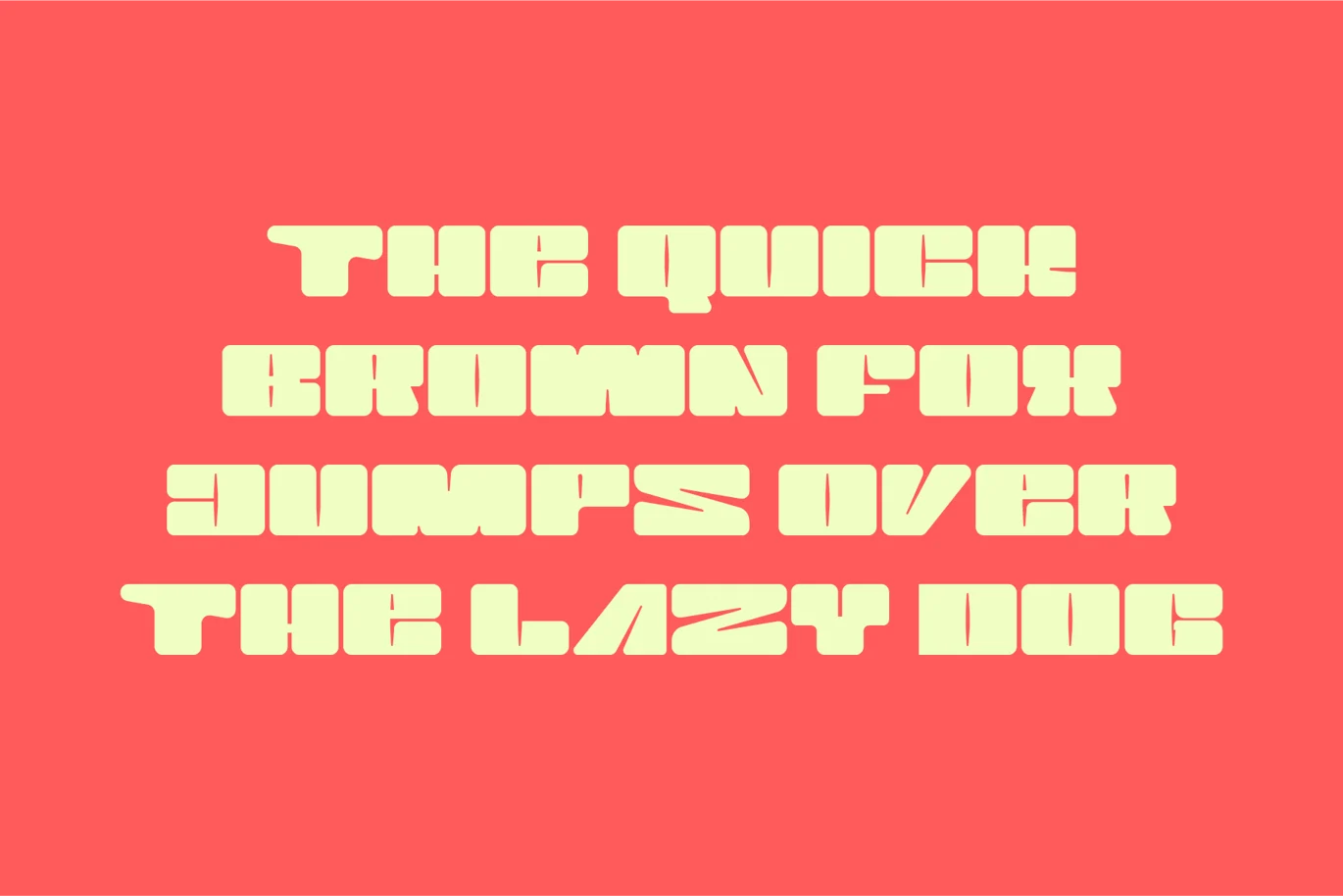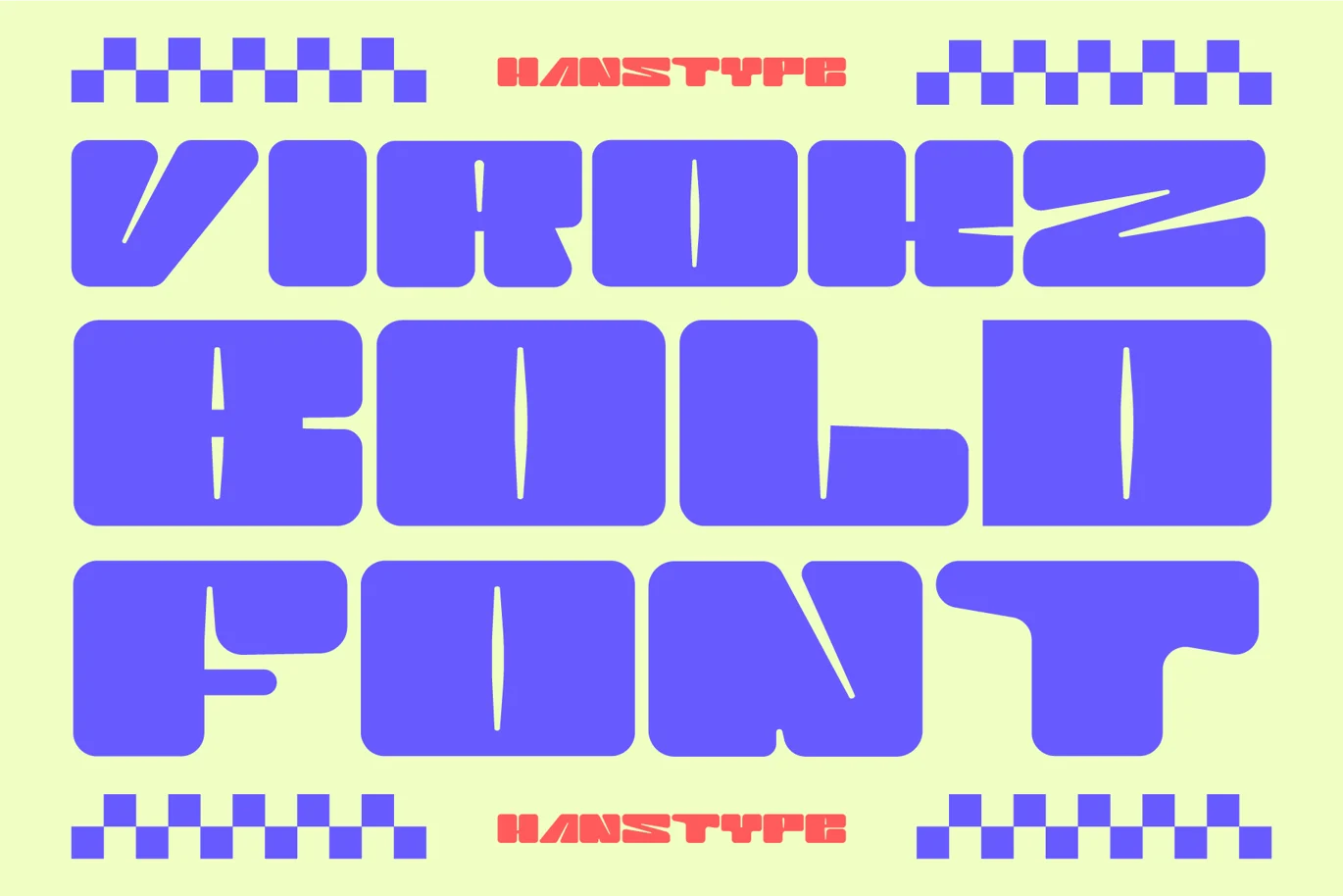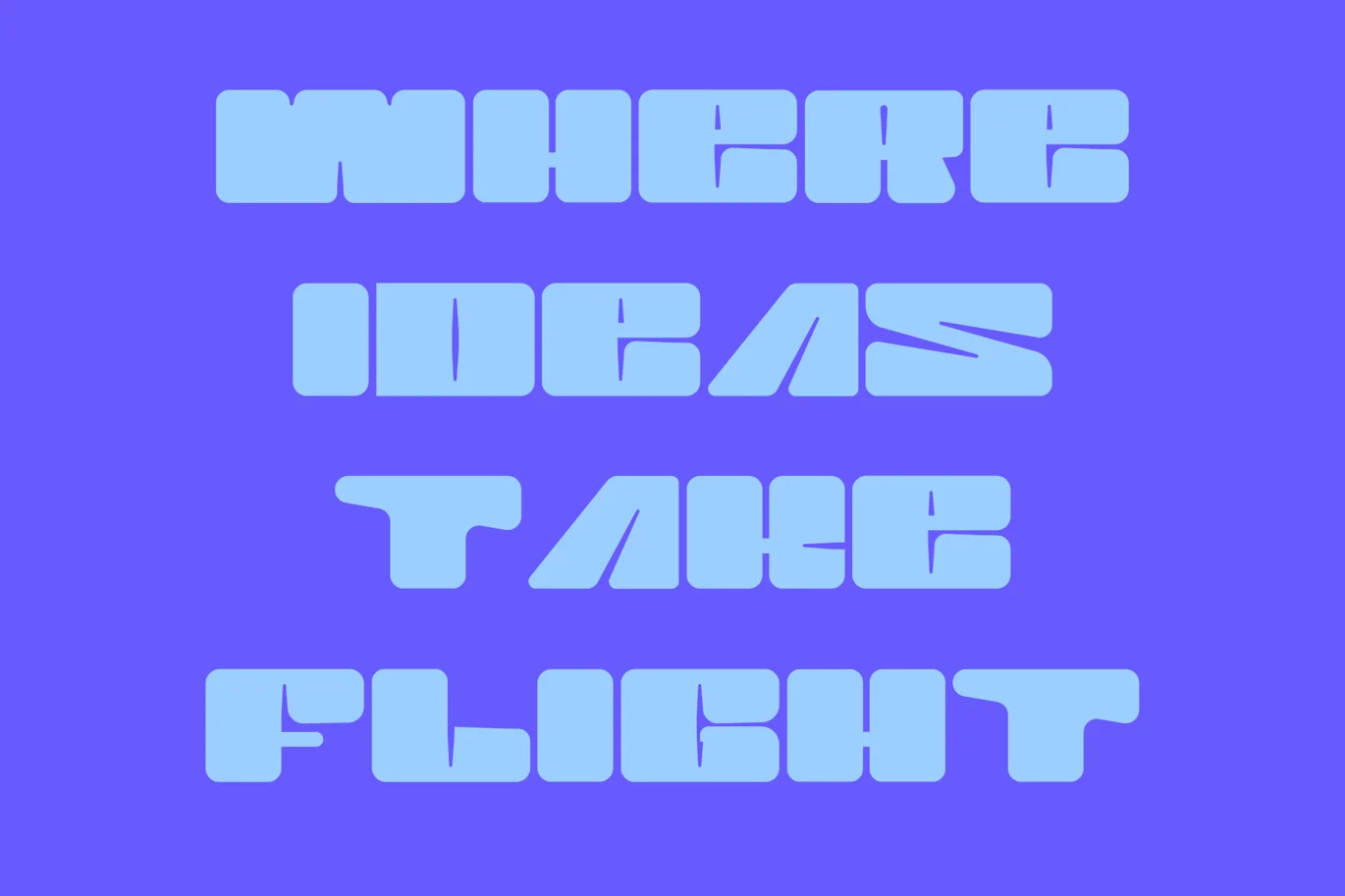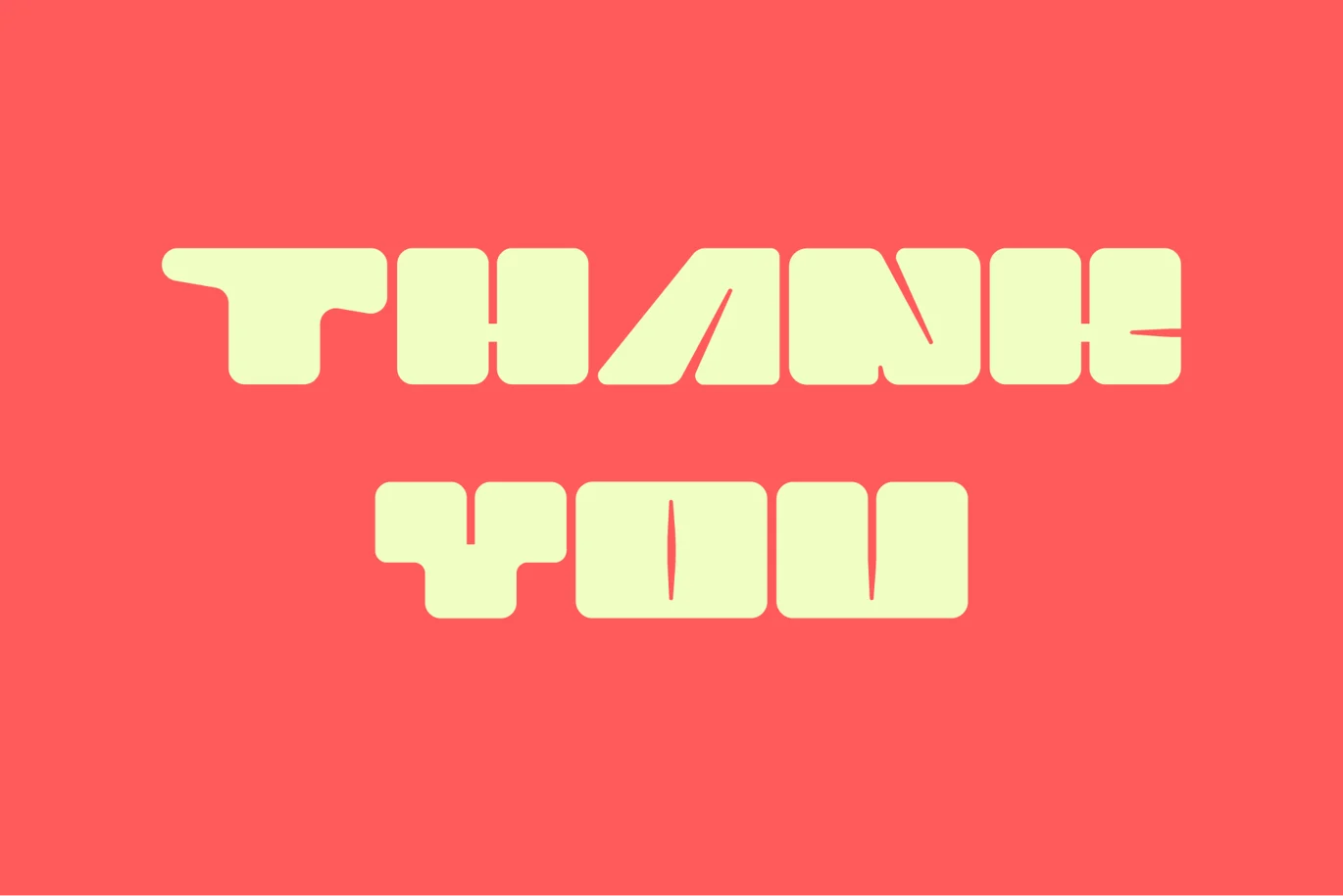
Virokz – Bold Display Font
Virokz is a bold font with a rounded concept, designed to deliver a strong visual impact while maintaining a friendly and modern aesthetic. The bold weight ensures that the font stands out, making it perfect for use in prominent headlines, logos, and branding where attention-grabbing clarity is needed.